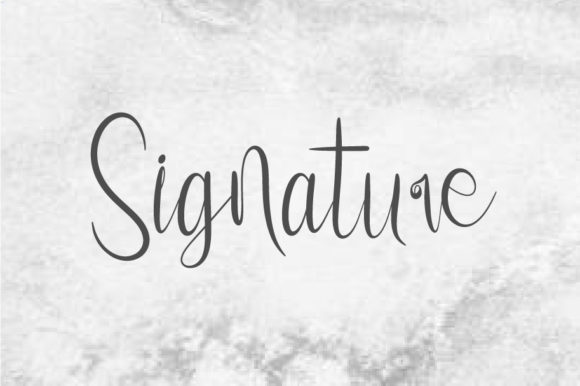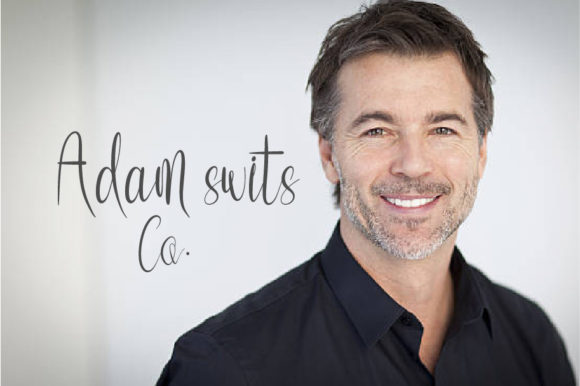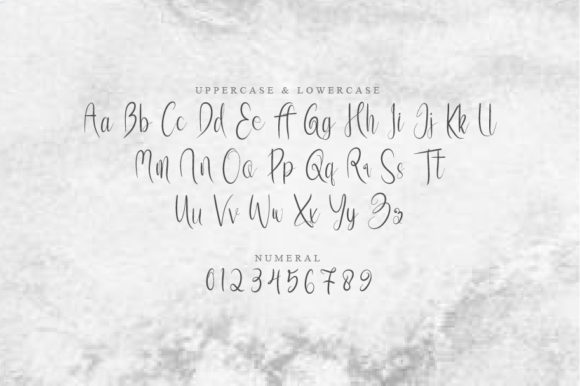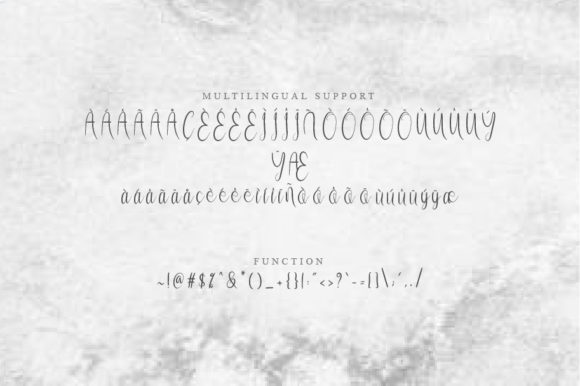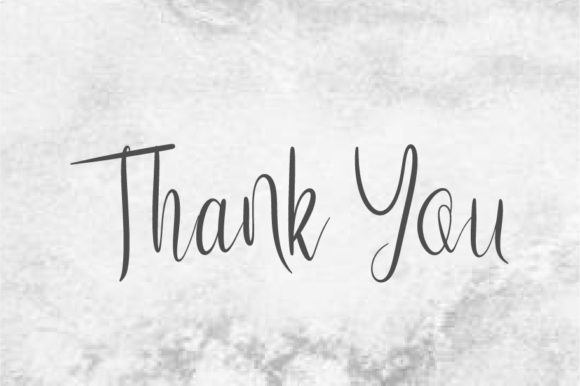
Introducing Blind Font: A Timeless Handwritten Script for Creative Designs
Are you a designer or crafter looking for a unique and beautiful font to elevate your creative projects? Look no further than Blind Font, a lovely and timeless handwritten script that is sure to capture attention. In this article, we’ll explore the features and benefits of Blind Font, and why it’s the perfect choice for creating eye-catching logos, branding, and quotes.
The Beauty of Blind Script
Blind Script is a stunning handwritten font that boasts a unique and beautiful touch. Every letter is carefully crafted to bring a sense of elegance and sophistication to your designs. The font’s timeless quality ensures that it will never go out of style, making it a valuable addition to your design arsenal.
Blind Font is incredibly versatile and can be used for a wide range of creative projects. Whether you’re designing a logo, creating branding materials, or crafting inspirational quotes, this font is sure to impress. Its beautiful and unique lettering will add a touch of personality to your designs, setting them apart from the crowd.
Key Features of Blind Font
- Unique and beautiful lettering: Every letter in Blind Font has a distinctive and lovely touch, making your designs stand out.
- Timeless quality: This font’s classic style ensures that it will remain relevant for years to come.
- Versatile: Blind Font can be used for a wide range of creative projects, from logos and branding to quotes and more.
- Elegant and sophisticated: This font adds a touch of refinement and luxury to your designs.
Why Choose Blind Font?
With so many fonts available, why choose Blind Font? Here are just a few reasons why designers and crafters love this font:
- Easy to read: Despite its elegant style, Blind Font is easy to read, making it perfect for use in quotes and other text-based designs.
- Highly customizable: You can use Blind Font in a variety of contexts, from large headings to small body text.
- Unique and distinctive: Blind Font’s beautiful lettering ensures that your designs will stand out from the crowd.
Tips for Using Blind Font
To get the most out of Blind Font, here are a few tips to keep in mind:
- Use it sparingly: Blind Font is a statement font, so use it sparingly to add emphasis and impact to your designs.
- Experiment with colors: Blind Font looks great in a variety of colors, so don’t be afraid to experiment and find the perfect hue for your design.
- Pair it with other fonts: Blind Font pairs beautifully with other fonts, so try combining it with a sans-serif font for added contrast.
| Font Name | Blind Font |